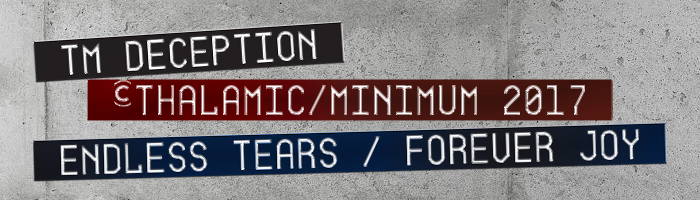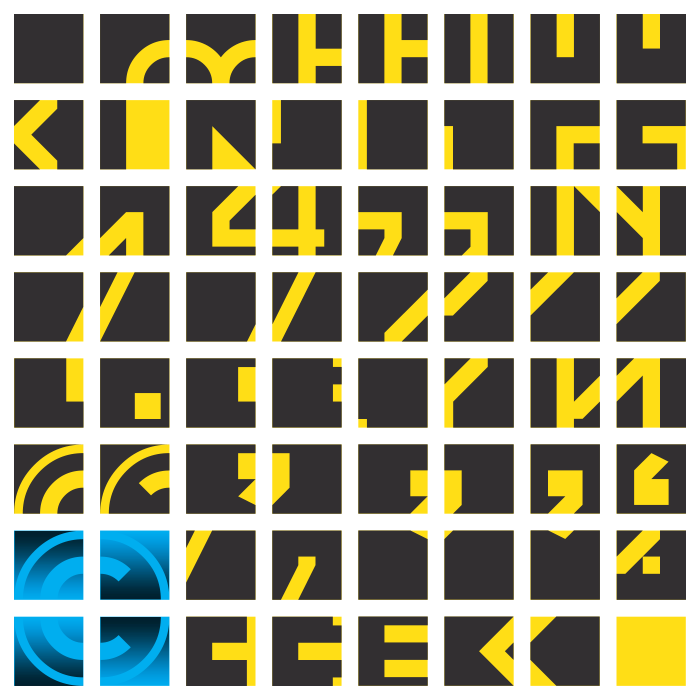
• Deceptively simple.
This fontstruction was made possible by several fontstruct special capabilities: connecting brick, brick stacks, custom bricks, and nudge. Out of 68 bricks used, only the full square brick is from the available bricks; the remaining 67 bricks are all modified in some way or another.
3 bricks tall.
besides the square, what are the other bricks
@ Brynda: be an explorer,trailblazer,original;don't copy special brick shapes! Inspiration is in buildings,old books,designs,fashion,music,food,family...  sketch your ideas and FontStruct them into a life to share :)
Only three bricks high? That's impressive.
@Sketchbook B: Sometimes it is better to let the letters be how they want to be and sometimes the letters have to be forced to be how they should be. Thanks.
wow how did you make such bricks?
Because once the custom brick was constructed, there was no need to nudge or manipulate or stack it in any way other than just placing it in a grid block. This allowed that the custom brick could be flipped, rotated or flipped as well as roatated. Therefore, instead of creating unnecessary rotated or flipped versions of custom bricks, only one instance of brick was created and flipped or rotated as needed, saving as many as 7 additional custom bricks.
While creating the sample above, I found a few unnecessary bricks that could have been avoided. I will go update the fs to do away with those as well.
The © copyright symbol was most difficult to get right just by stacking original or custom bricks. The top right quadrant of the same hardest to get right. Glad it worked out in the end.